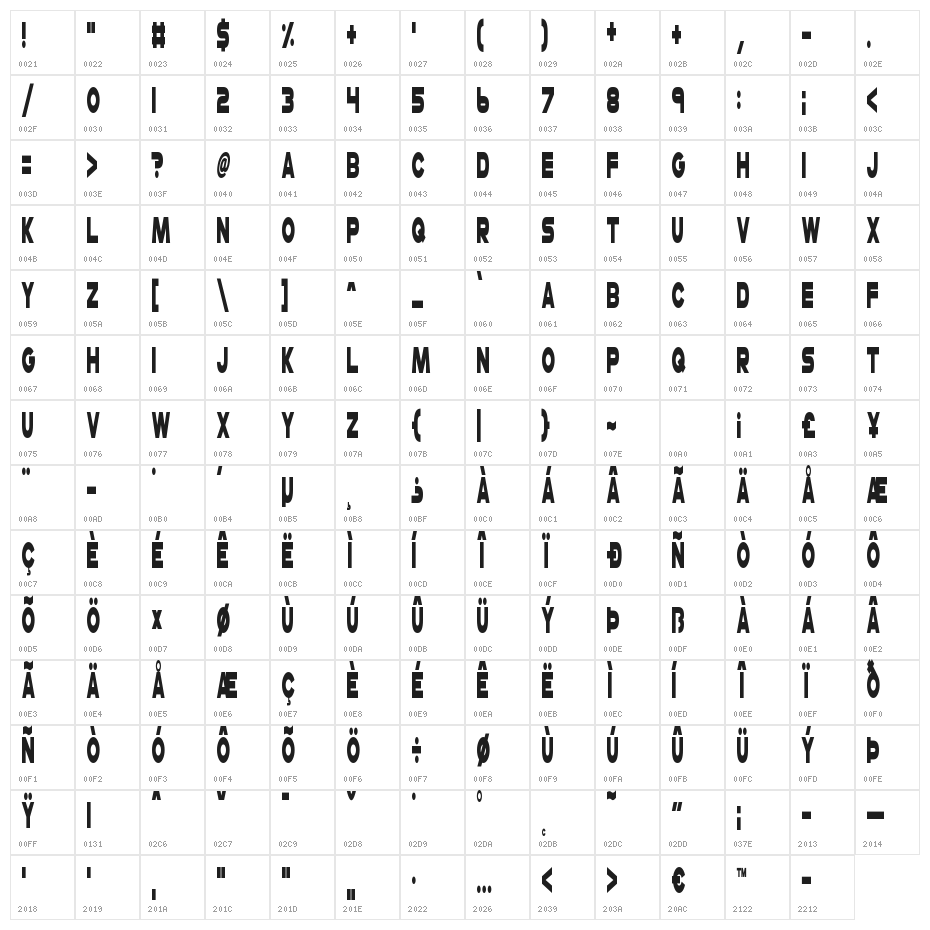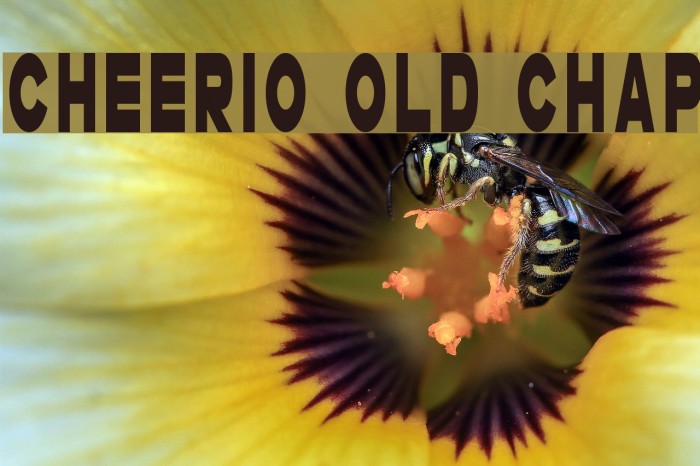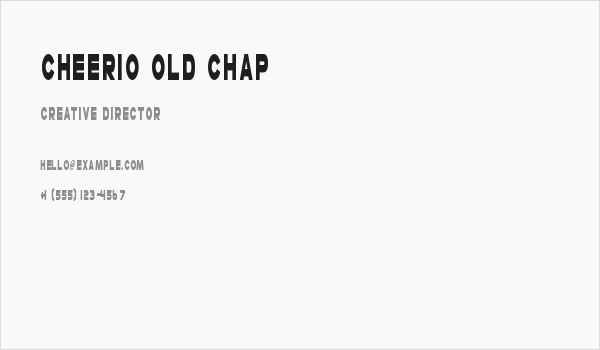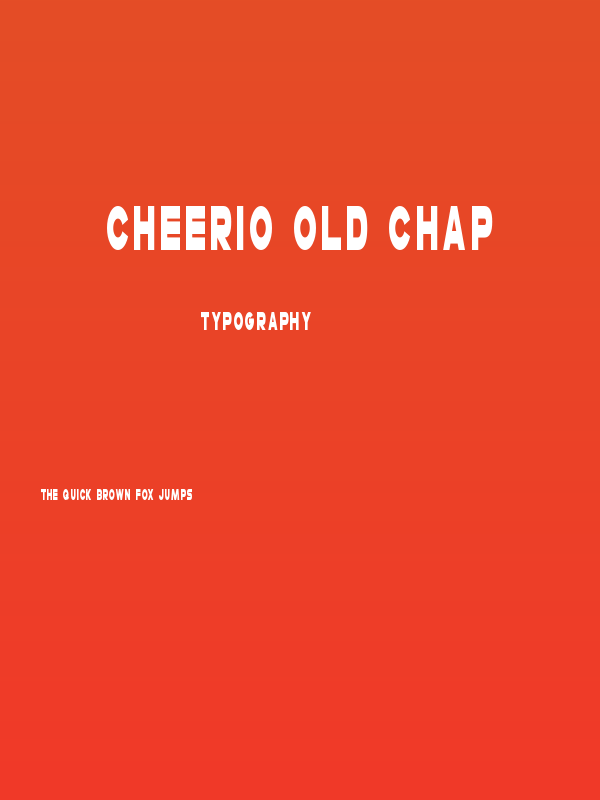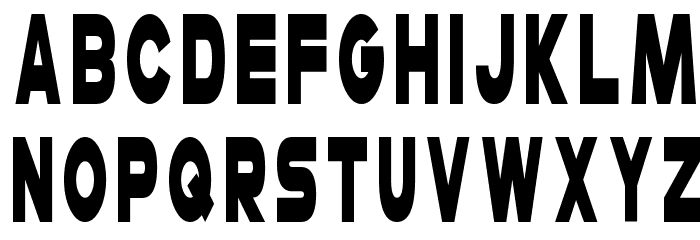
Cheerio Old Chap Font
Cheerio Old Chap Description
This font features bold, geometric letterforms with a strong presence. The uppercase and lowercase letters are designed with a uniform stroke width, giving it a cohesive and modern look. The numerals and special characters maintain the same boldness, ensuring consistency across all glyphs. The overall style is clean and impactful, making it suitable for attention-grabbing designs. The characters are evenly spaced, providing a balanced appearance that enhances readability.
| Proposed Projects | Ideal for posters, headlines, branding, and any project requiring a bold statement. |